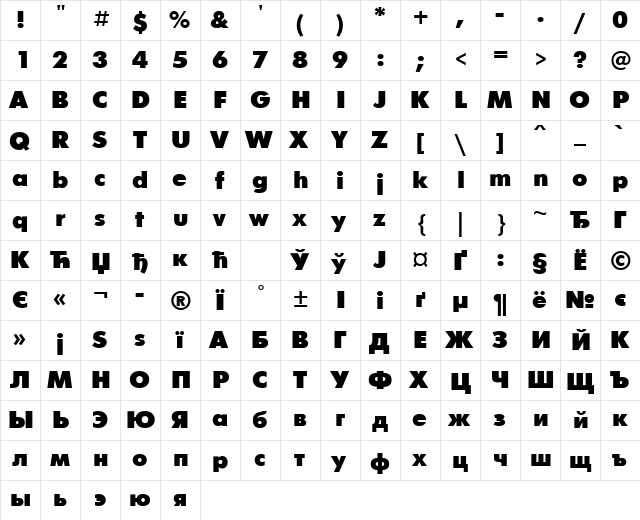
FuturisXCTT Bold
Design Context for FuturisXCTT Typeface
FuturisXCTT channels digital-age aesthetics through its sharp, structured letterforms — ideal for brands that want to signal innovation. Its bold stroke weight gives it real presence on the page.
Pro Tip: Use FuturisXCTT in combination with a neutral sans for body text. Let it define the brand voice in headlines while keeping reading comfortable elsewhere.